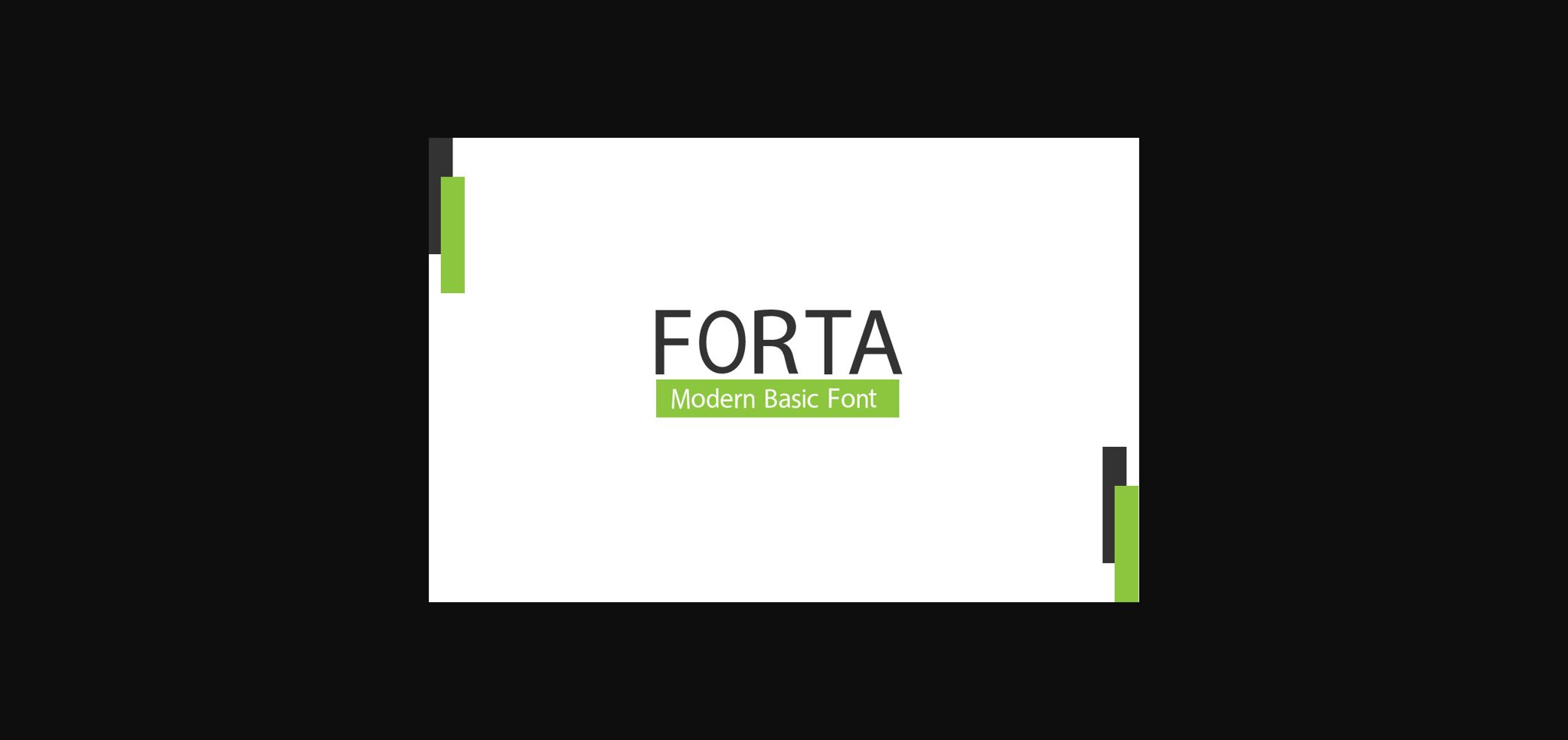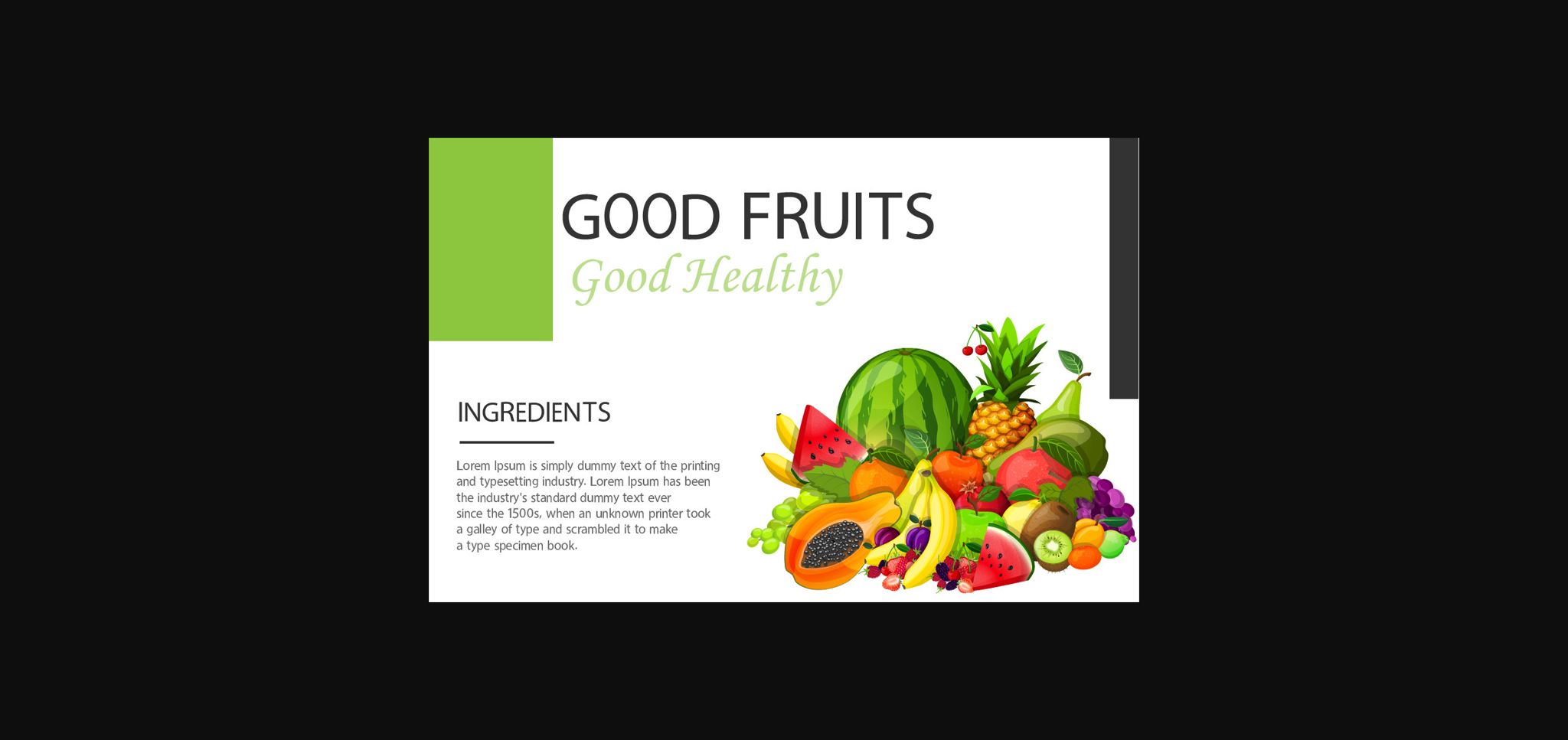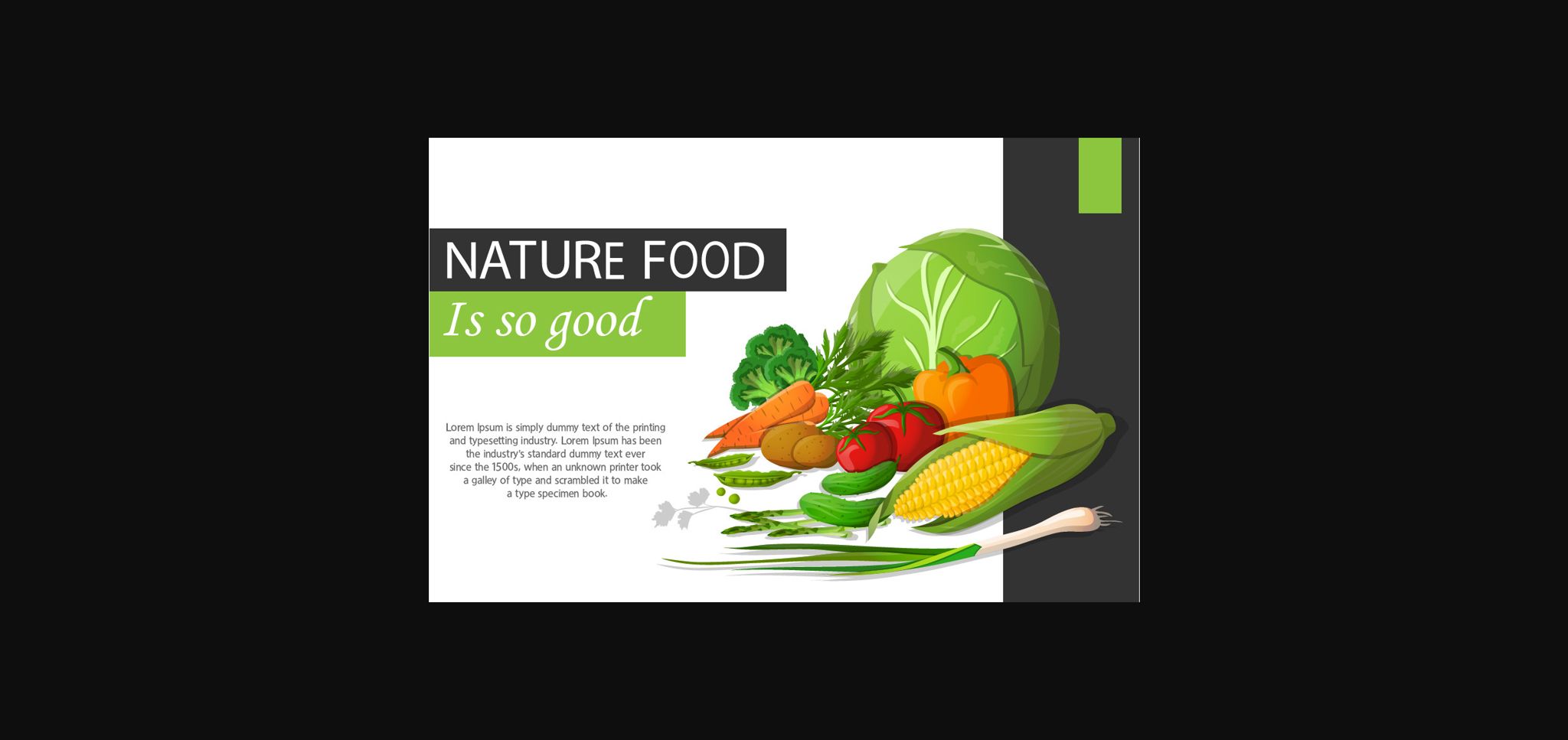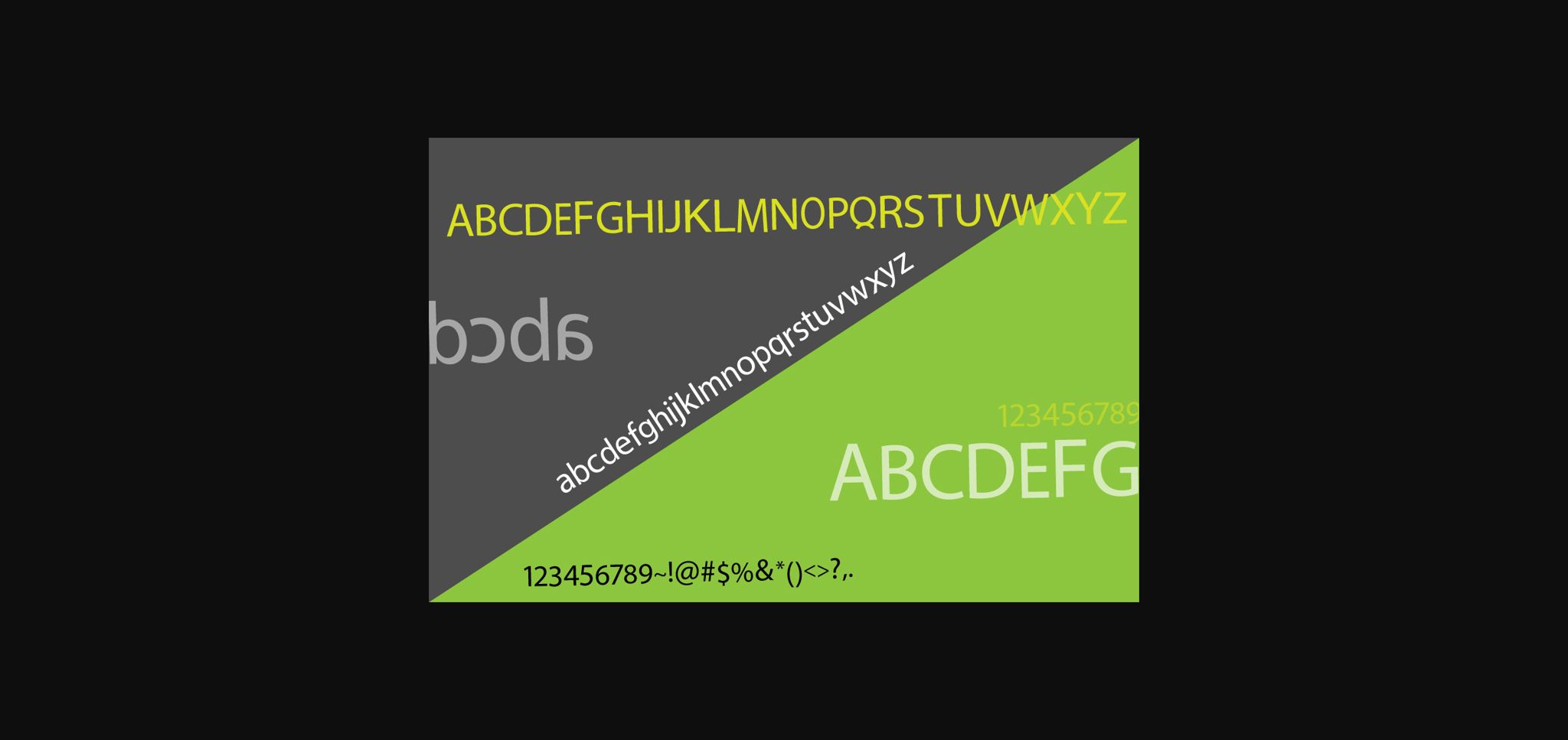
About Forta Basic Font
Forta Basic is a modern and fun sans-serif typeface. This font looks great paired with its own family! This font is perfect for headings, but also works well as smaller body text!